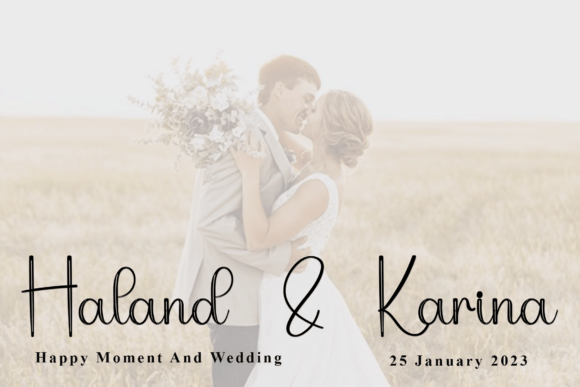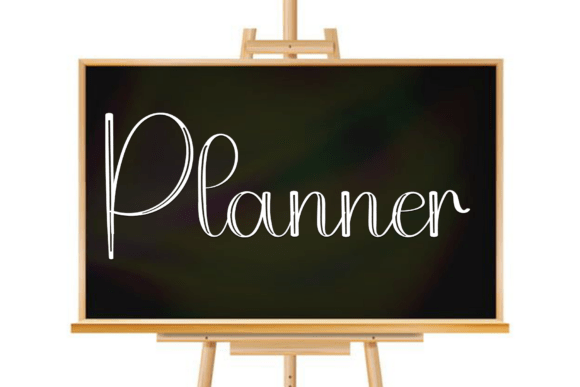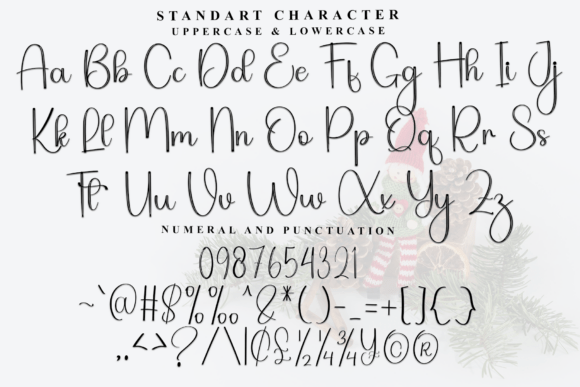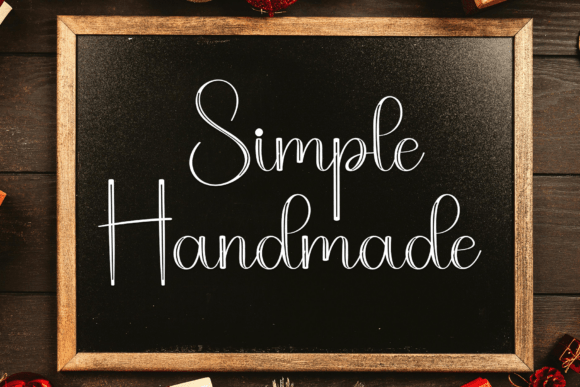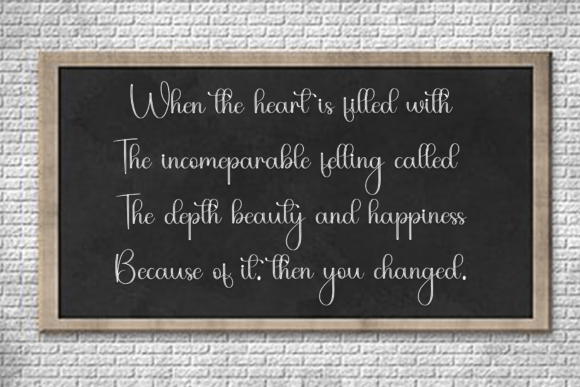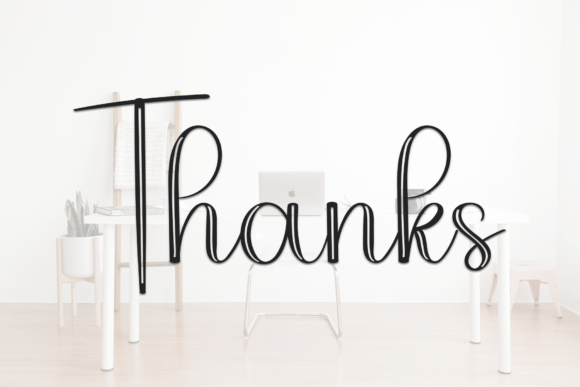
Heaven Writing Font: Elevate Your Designs with Elegance and Sophistication
In the world of typography, few fonts capture the essence of luxury and romance as effortlessly as the Heaven Writing Font. This elegant script font is designed with graceful swashes and fluid strokes that bring a touch of sophistication to every word. Whether you’re a designer, crafty DIY enthusiast, or simply someone who appreciates beautiful typography, Heaven Writing Font is sure to leave a lasting impression.
The Perfect Blend of Modern Calligraphy and Classic Charm
Heaven Writing Font seamlessly blends modern calligraphy with classic charm, making it an ideal choice for a wide range of design projects. From wedding invitations and branding materials to logos and social media posts, this font adds a touch of elegance and refinement that’s hard to find elsewhere. Its stylish swashes and fluid strokes create a sense of movement and fluidity, making your text feel personal, luxurious, and truly special.
One of the things that sets Heaven Writing Font apart is its incredible versatility. This font can be used in a multitude of design projects, including:
- Wedding invitations and stationery: Add a touch of romance and sophistication to your wedding materials with Heaven Writing Font.
- Branding and logos: Elevate your brand with a luxurious and elegant font that’s sure to make a lasting impression.
- Social media posts: Stand out on social media with beautiful, eye-catching text that showcases your personality and style.
- DIY crafts: Use Heaven Writing Font to add a personal touch to your handmade crafts, such as journals, planners, and gift tags.
Key Features of Heaven Writing Font
So what makes Heaven Writing Font so special? Here are just a few of its key features:
- Elegant swashes: Add a touch of drama and flair to your text with beautiful, flowing swashes.
- Fluid strokes: Create a sense of movement and fluidity with smooth, connected strokes.
- Modern calligraphy: Blend modern style with classic charm for a truly unique look.
- High-quality design: Enjoy crisp, clear text that’s perfect for printing and digital use.
Tips for Using Heaven Writing Font
To get the most out of Heaven Writing Font, here are a few tips to keep in mind:
- Use it sparingly: Because Heaven Writing Font is so elegant and refined, it’s best to use it sparingly to avoid overwhelming your design.
- Pair it with contrasting fonts: Combine Heaven Writing Font with simpler fonts to create visual interest and contrast.
- Experiment with colors: Try pairing Heaven Writing Font with a range of colors to find the perfect combination for your design.
- Don’t be afraid to get creative: Heaven Writing Font is perfect for a wide range of design projects, so don’t be afraid to think outside the box and try something new.
In conclusion, Heaven Writing Font is a truly special font that offers a unique blend of elegance, sophistication, and romance. With its beautiful swashes, fluid strokes, and modern calligraphy, it’s the perfect choice for designers, crafters, and anyone who appreciates beautiful typography. Whether you’re working on a wedding invitation, branding materials, or simply a social media post, Heaven Writing Font is sure to elevate your design and leave a lasting impression.